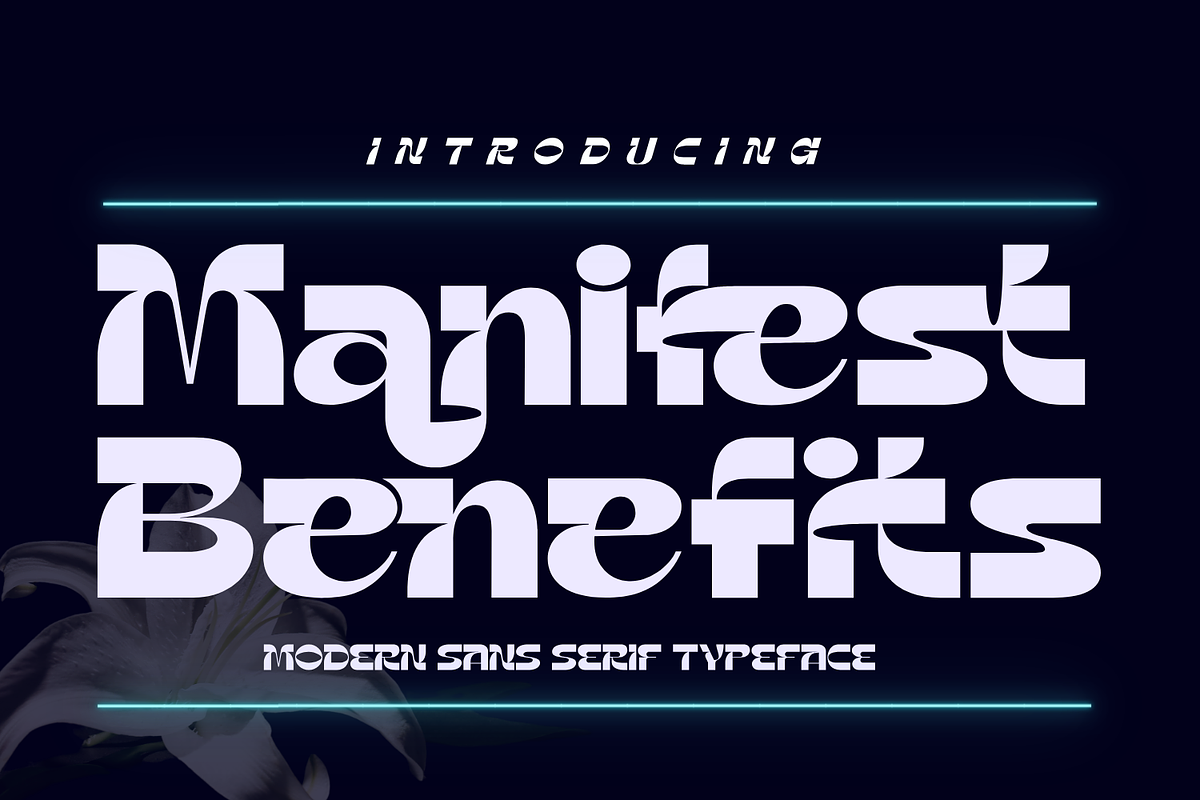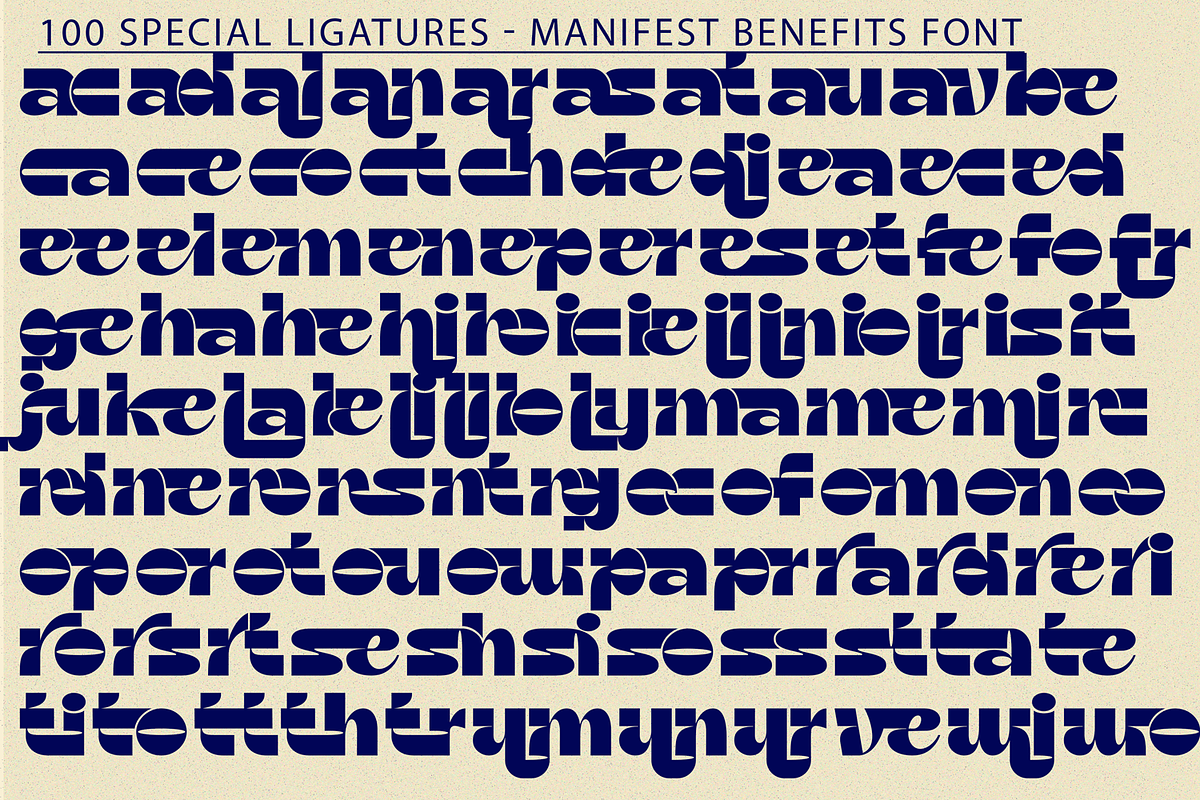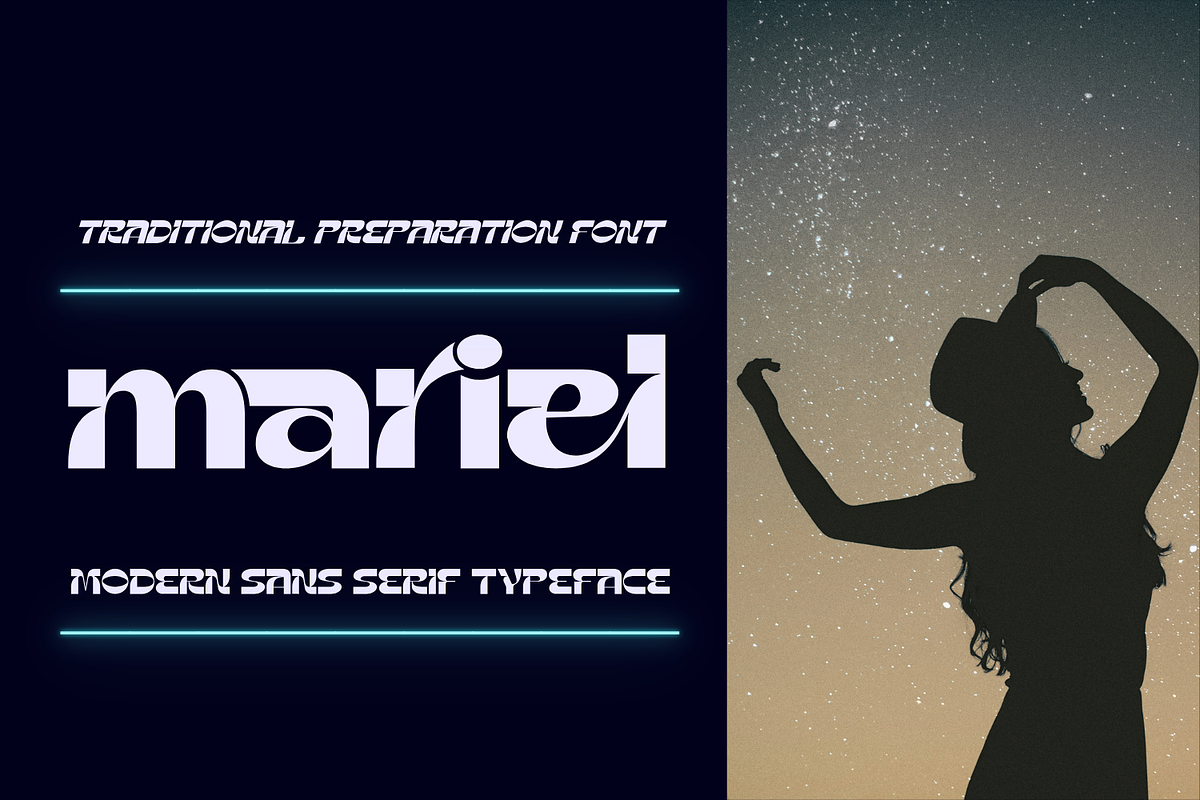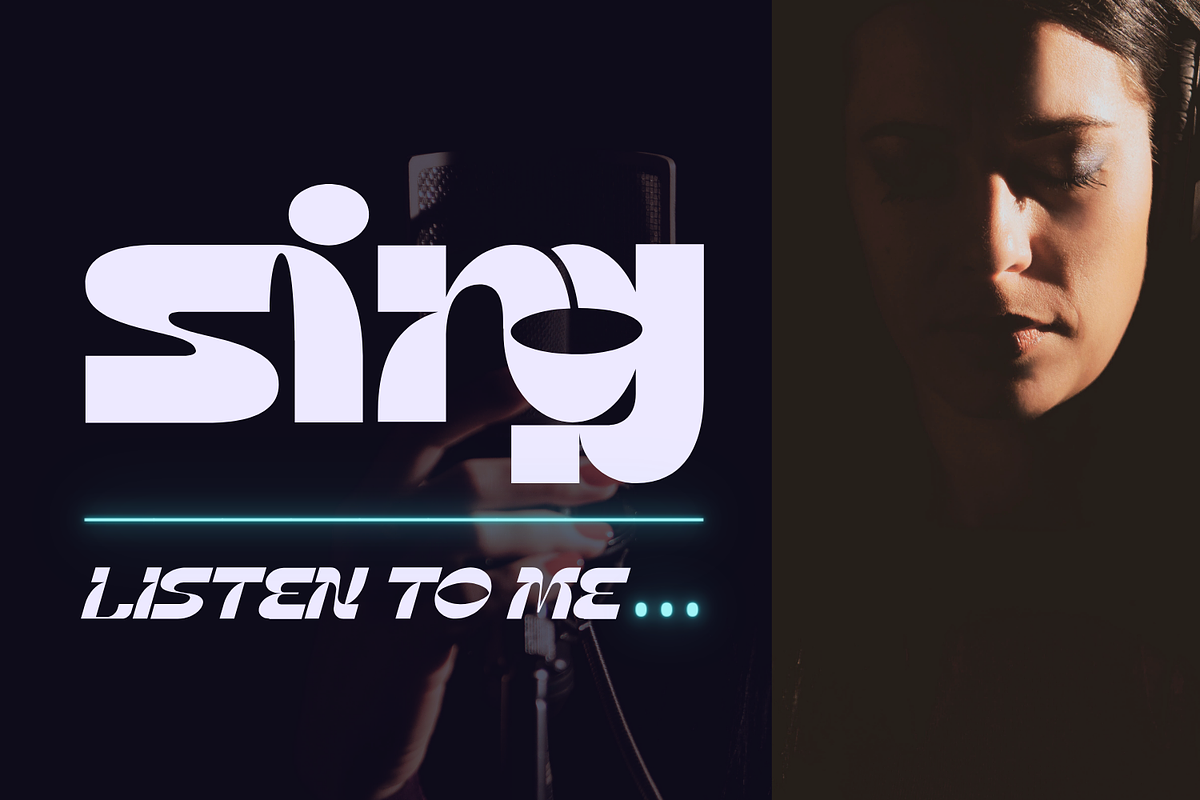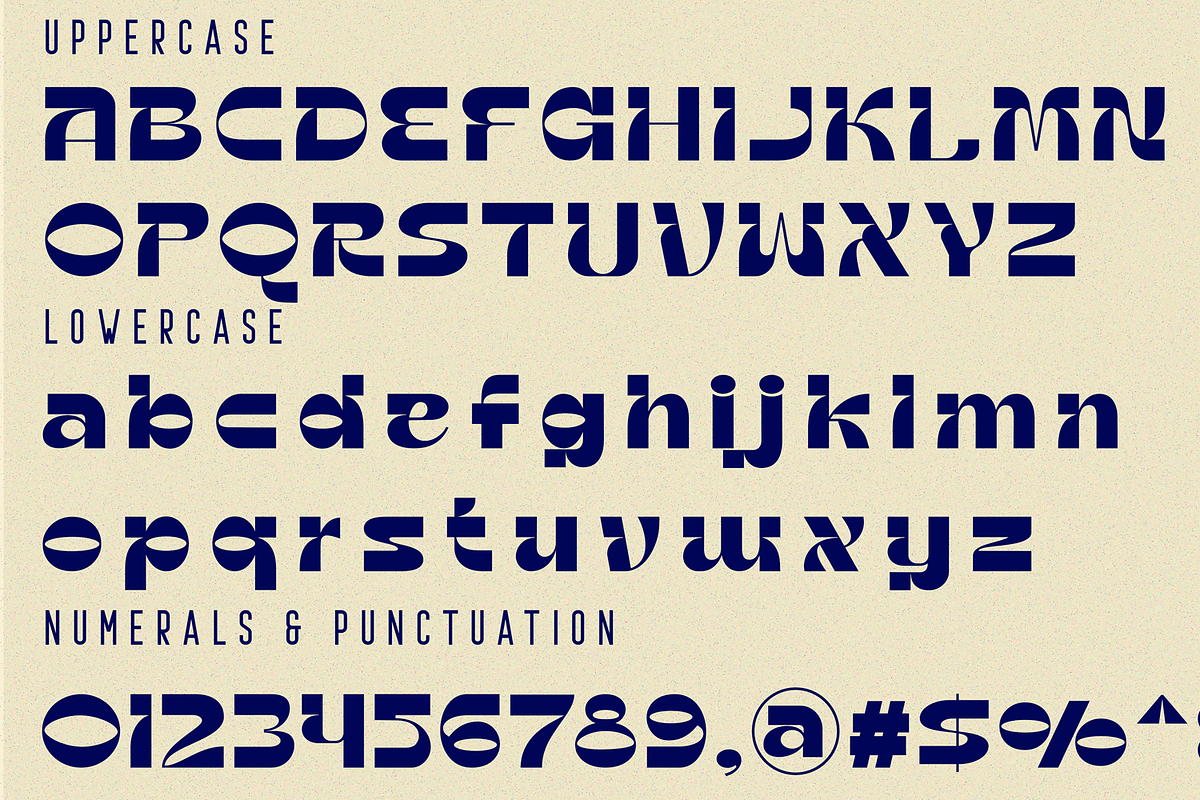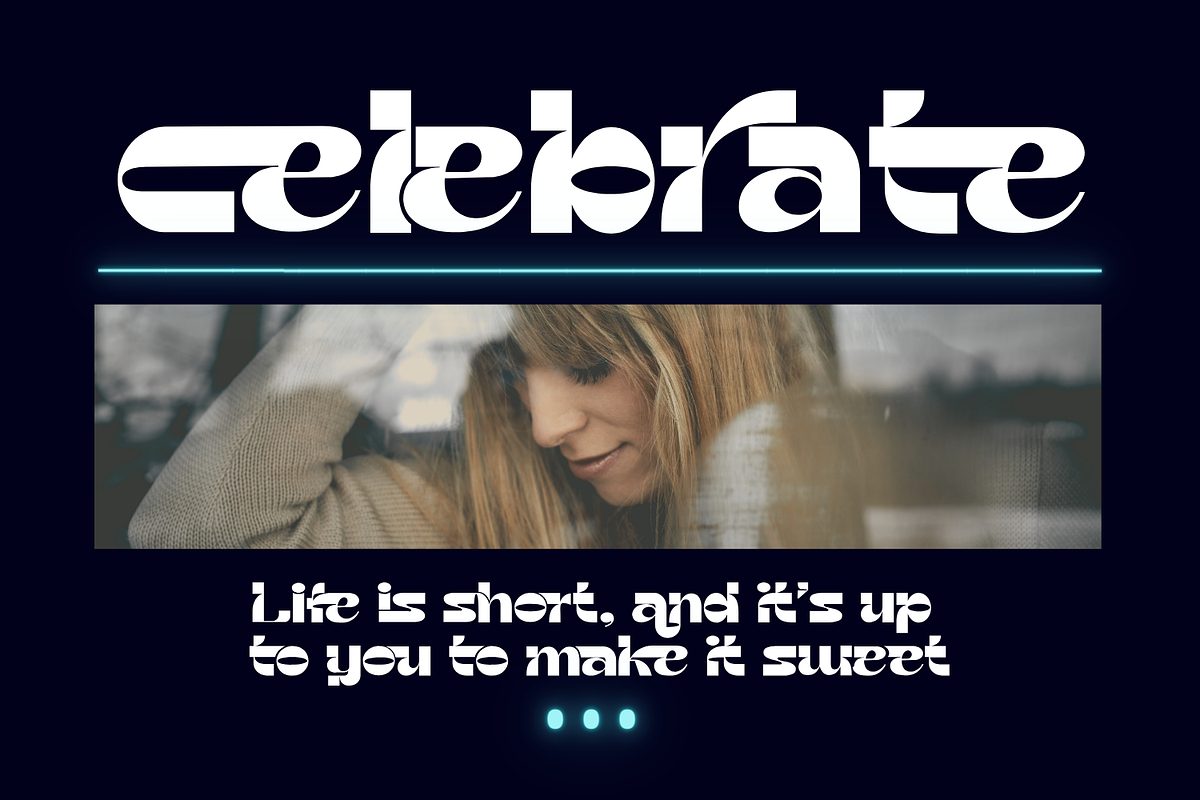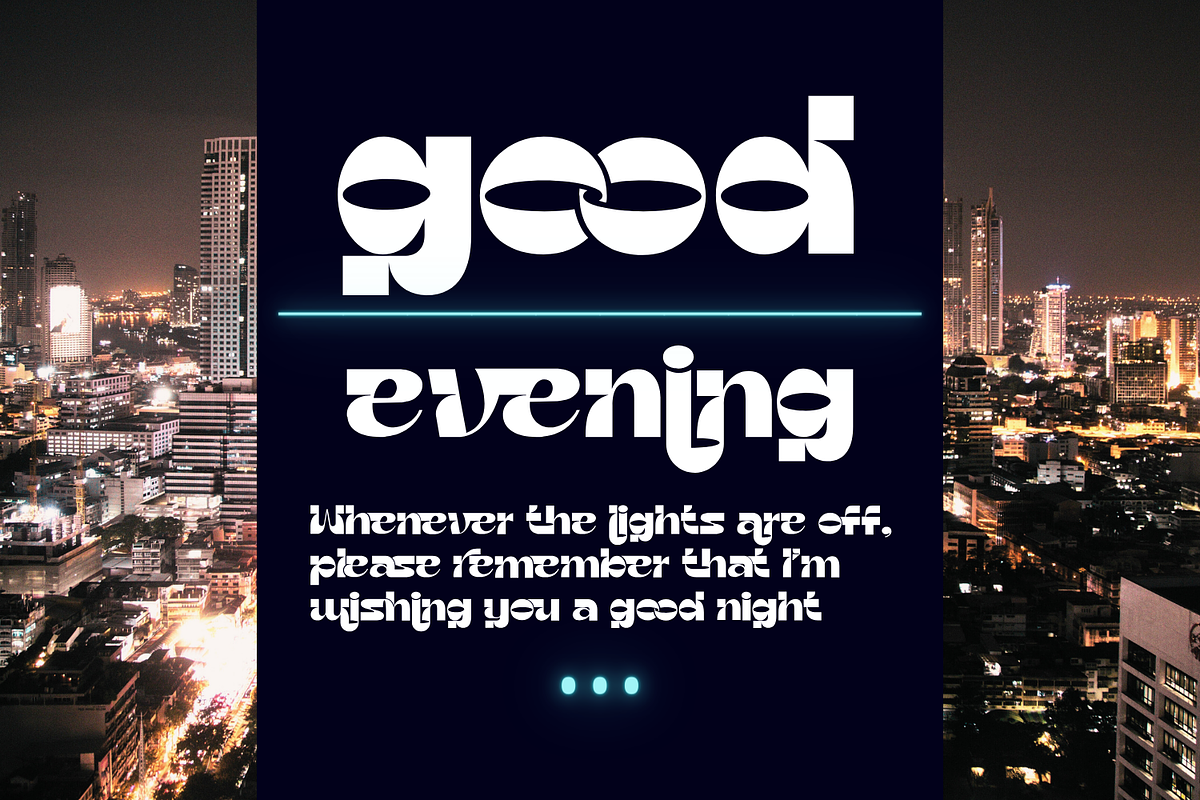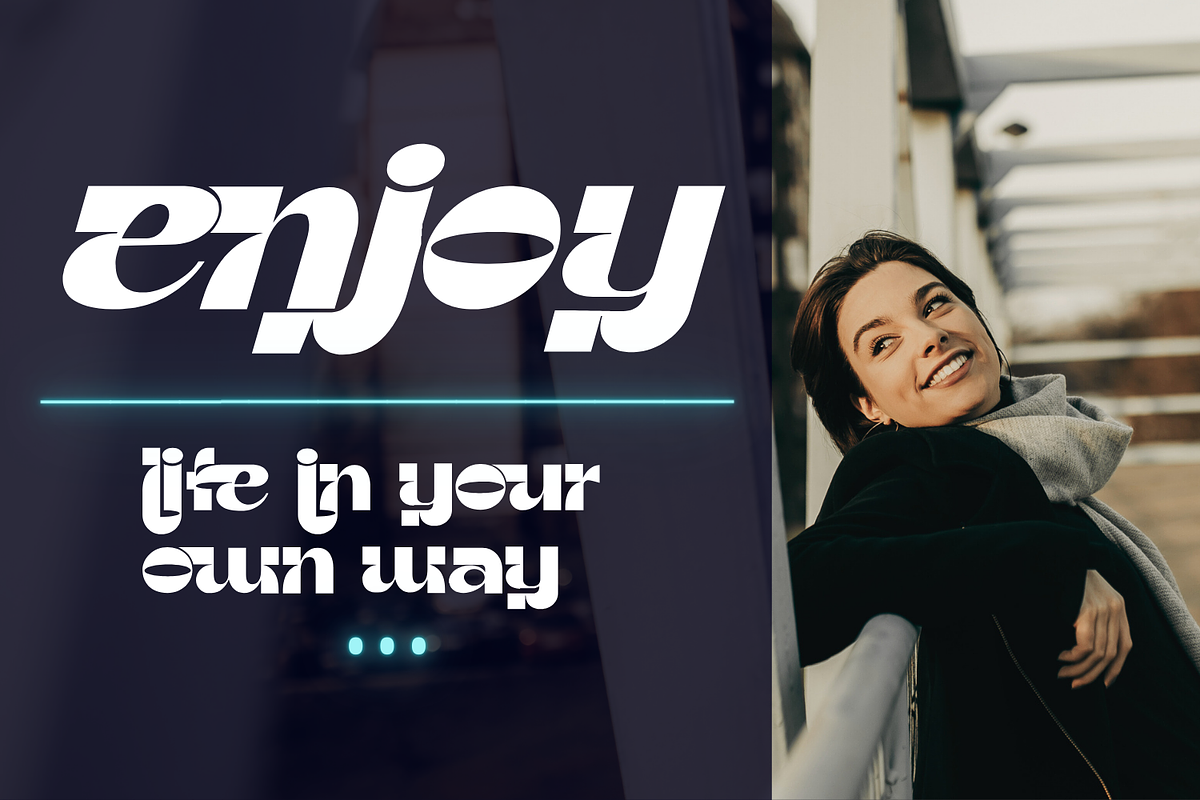
Manifest Benefits Font
Manifest Benefits Font - A bold, playful and funky display sans serif that are inspired by the classic advertisement letters. Crafted with high attention to details to match with nowadats trendiness. This font can give your designs a playful and friendly impression. You can use this font for retro, vintage and urban designs. This font comes with alternative style and ligature features which are suitable for various projects such as logos, product labels, posters and many more.
Manifest Benefits was built with OpenType features and includes 100 ligatures, alternate, numbers, punctuation, and it also supports other languages.
ac ad al an ar as at au av be ca ce ch co ct de di ea ec ed ee el em en ep er es et fe fo fr ge ha he hi ho ie ic il in io ir is it ju ke la le li ll lo ly ma me mi nc nd ne ng no nt ns oc of om on oo op or ot ou ow pa pr ra rd re ri ro rs rt se sh si so ss st ta te th ti to tr tt um un ur ve wi wo
This font also included full set of:
- Special Ligatures